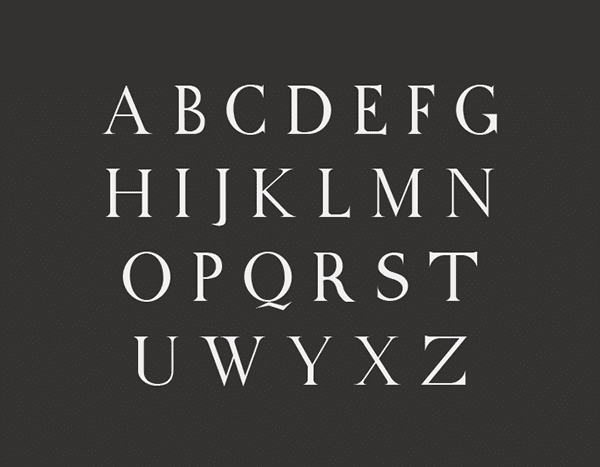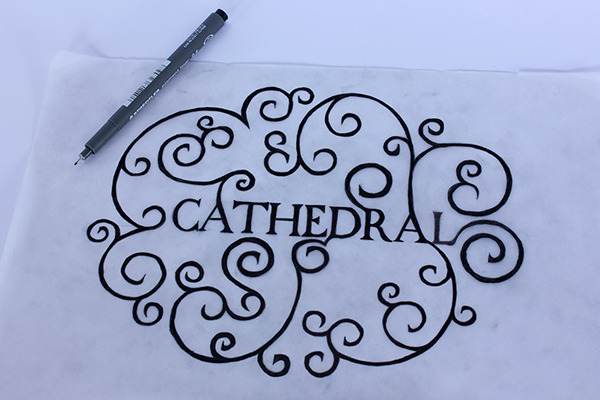
Cathedral
The Font can be included in the group of transitional character, indicating the tarnsition from the ancient to the modern Roman. It has a vertical axis sightly tilted with the graces that I end up with a point. free font everyday and today’s free font is designed by Mariagrazia Marino.